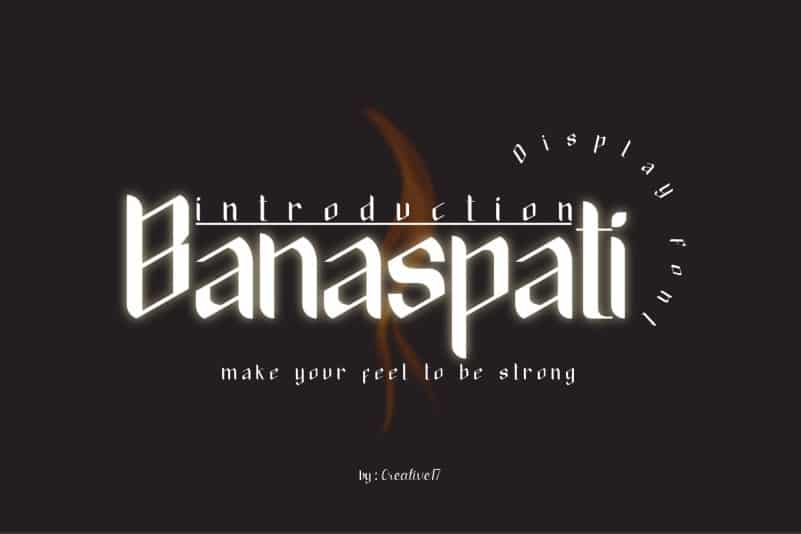
Banaspati Font
Banaspati Display Font is a very versatile font that works well in large and small sizes. It’s a strong, soft and clean display font manufactured by Irfan Hidayat. This font is perfect for companion logos, head letters, movie poster titles, as well as other design purposes. Feel the strong power of a font called banaspati.